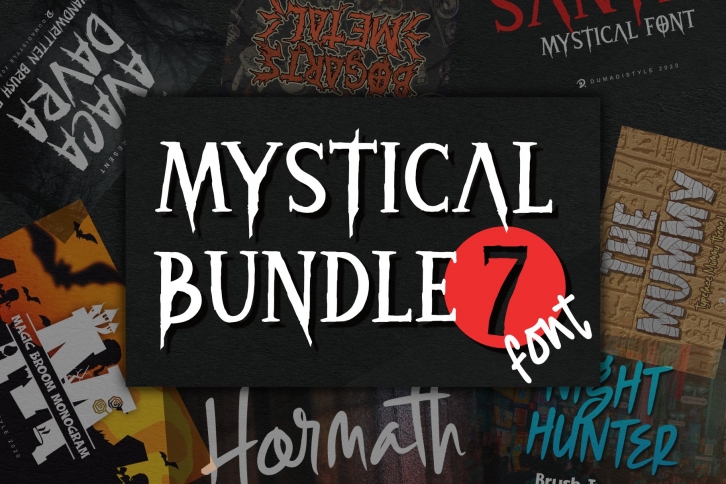
Mystical Bundle 7 is a great font that was designed by Dumadistyle. Imagine the amount of combinations you can create using this font! The archive is 3.78 MB and it was released on October 14, 2020. Mystical Bundle 7 looks beautiful on wedding invitations, greeting cards, logos, posters, labels, t-shirt designs, logos, business cards and is perfect for use in ink or watercolor works, fashion, magazines, packaging and food menus, children's books and more!